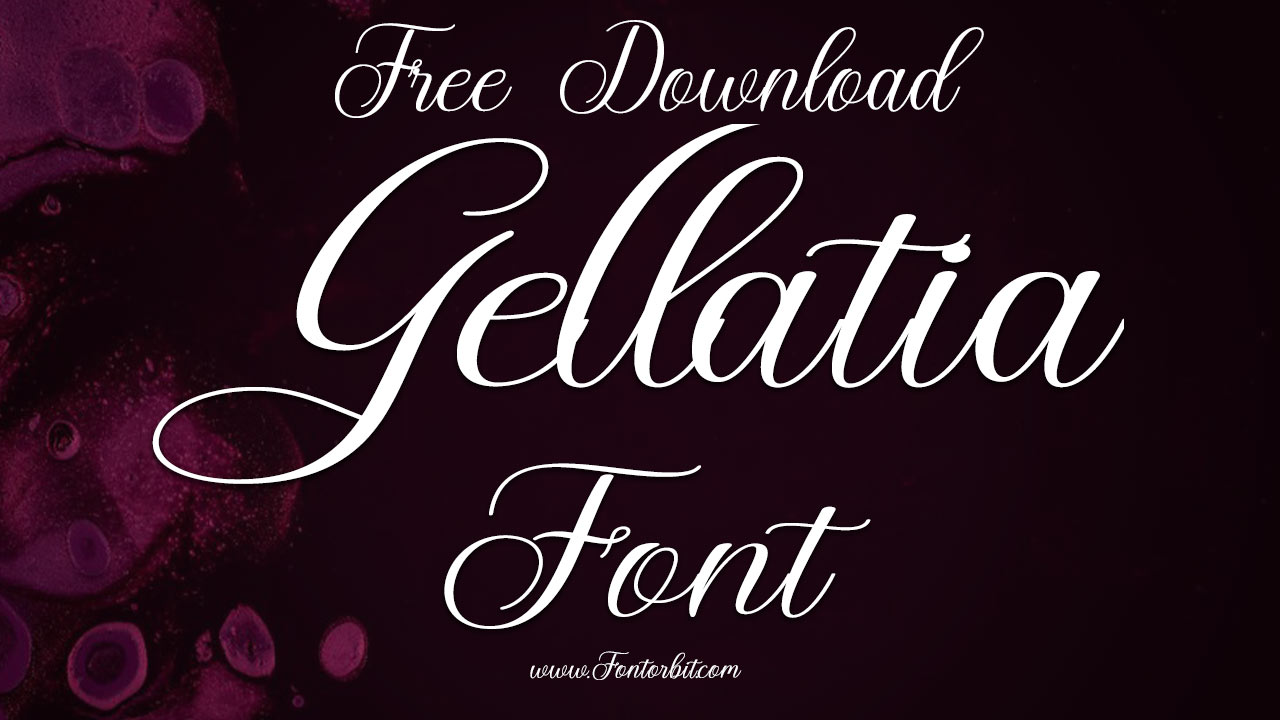
The Gellatia Font, designed by Donis Miftahudin and published by Din Studio, showcases a beautifully crafted handwritten script.
This elegant typeface features natural brush strokes, adding a refined and artistic touch to your design projects. Ideal for various applications, from branding to wedding invitations, Gellatia enhances the aesthetic appeal with its sophisticated and personal style.
The Gellatia Font Family
a. Gellatia Regular
b. Gellatia Swash
The Gellatia Font is perfect for designs that require an elegant and personal touch. Its sophisticated brush script style enhances the beauty of branding materials, wedding invitations, fashion designs, and more, making every project stand out with refined charm.
1.What Is The Gellatia Font?
The Gellatia Font is an elegant handwritten script typeface with natural brush strokes, designed to enhance the aesthetic appeal of various design projects.
2.Who Designed The Gellatia Font?
Donis Miftahudin designed the Gellatia Font, which is published by Din Studio.
3.What Are The Key Features Of The Gellatia Font?
Features include a hand-lettered brush style, 88 alternates, 6 ligatures, 52 swashes, multilingual support, and compatibility with OTF, TTF, and WOFF formats.
4.How To Use Gellatia Font In Branding?
Utilize Gellatia for elegant branding materials, such as logos and business cards, to add a sophisticated and artistic touch to your brand’s visual identity.
5.What Are The Alternatives To The Gellatia Font?
Similar fonts include Alex Brush, Pacifico, and Great Vibes, which offer stylish handwritten and script aesthetics.